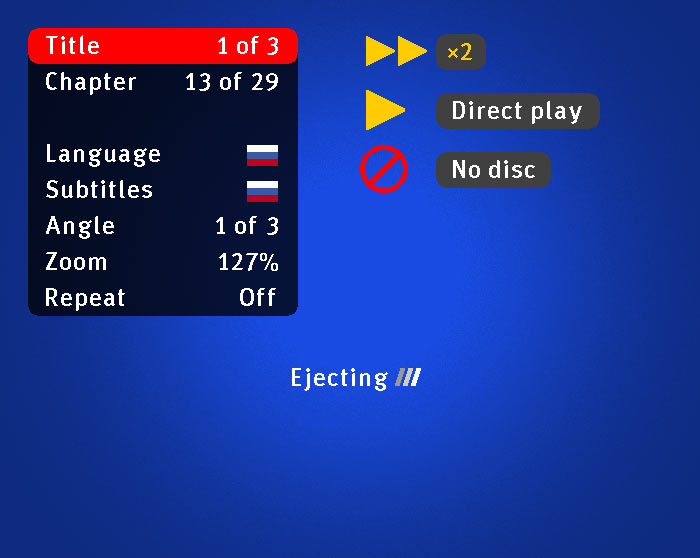
The BBplay typeface is used in all InErgo screen menus. The letters are slim enough to fit as much text as possible on low resolution screens. Letter spacing was increased to prevent letters from bumping into one another on old tube TVs. The type can withstand distortions if theres a mismatch between the formats of the TV set and the image (4:3 and 16:9). ![]() BBplay type in interface
The character set includes ten West-European and CIS languages, as well as Hebrew. The typeface contains a set of expanded punctuation. |